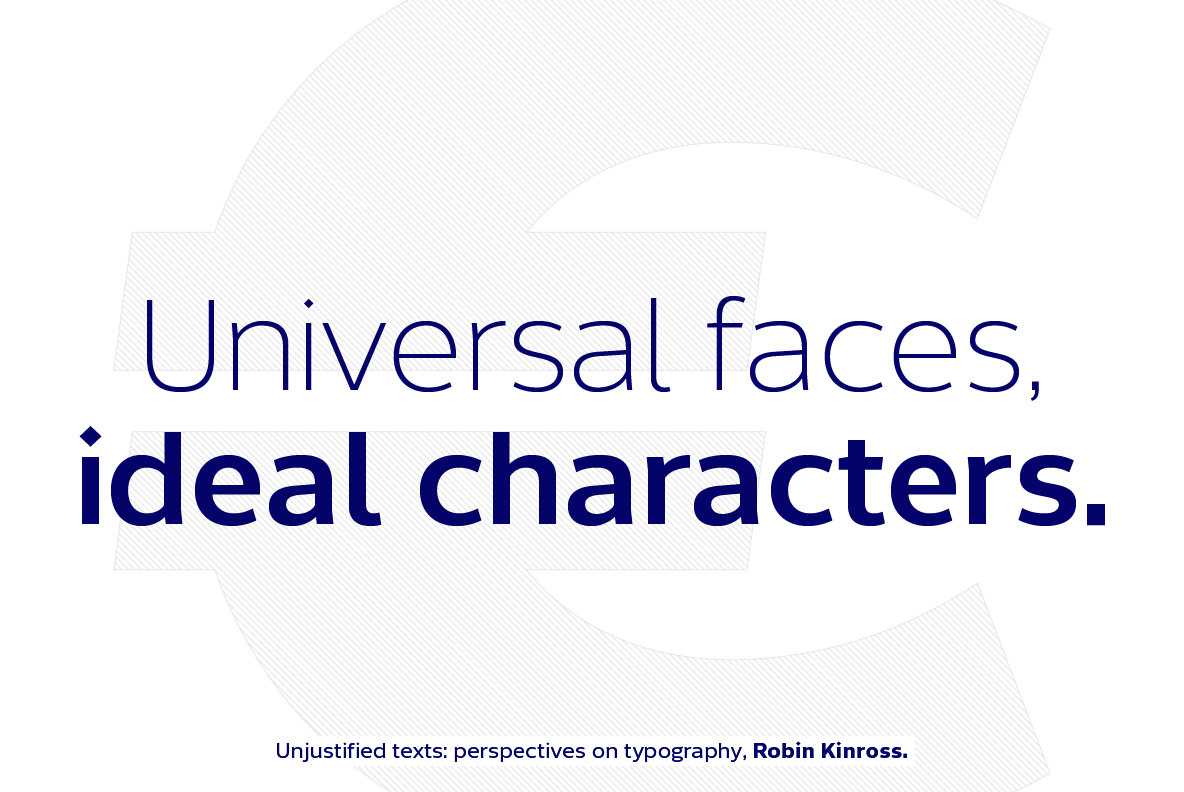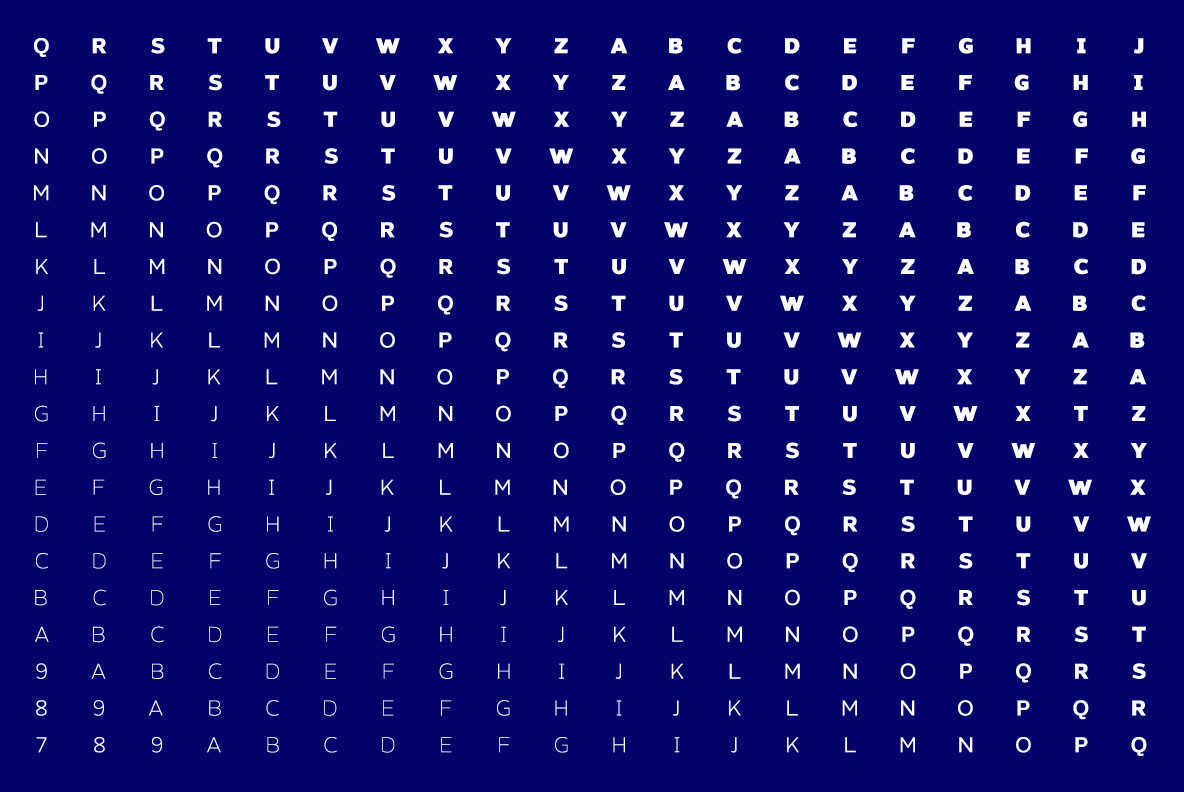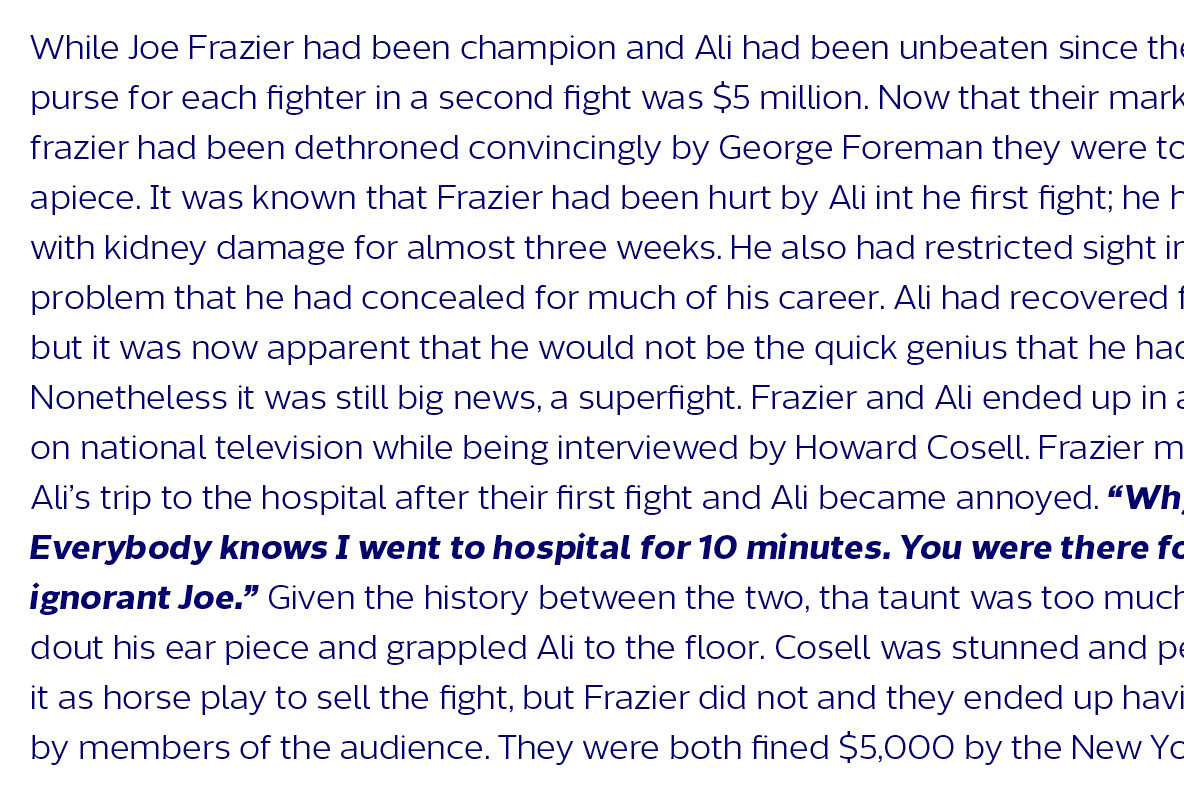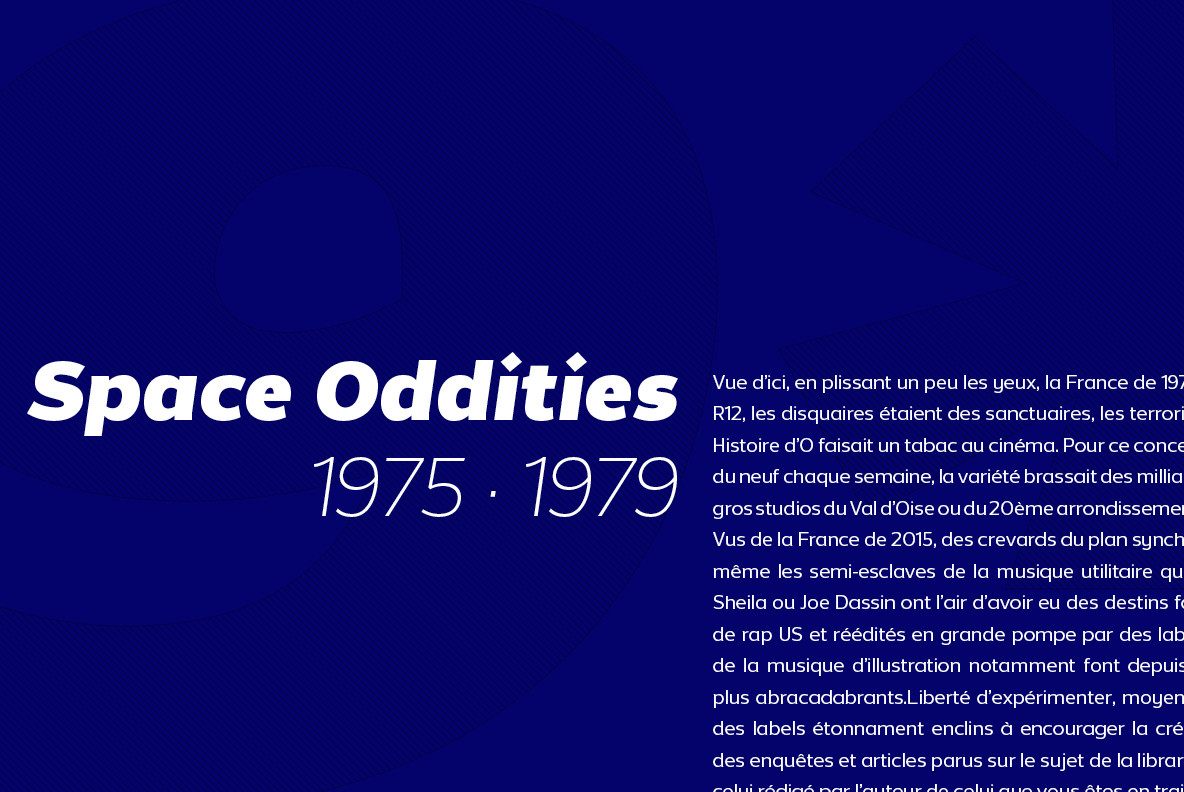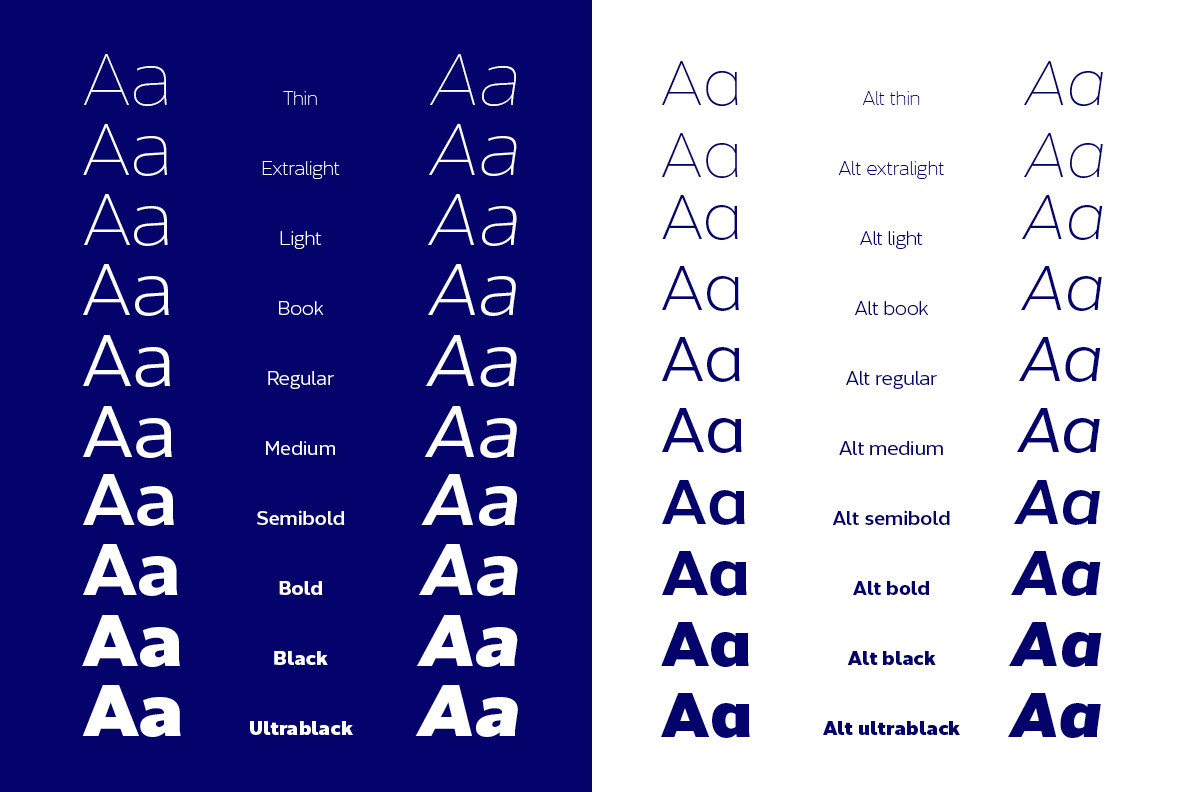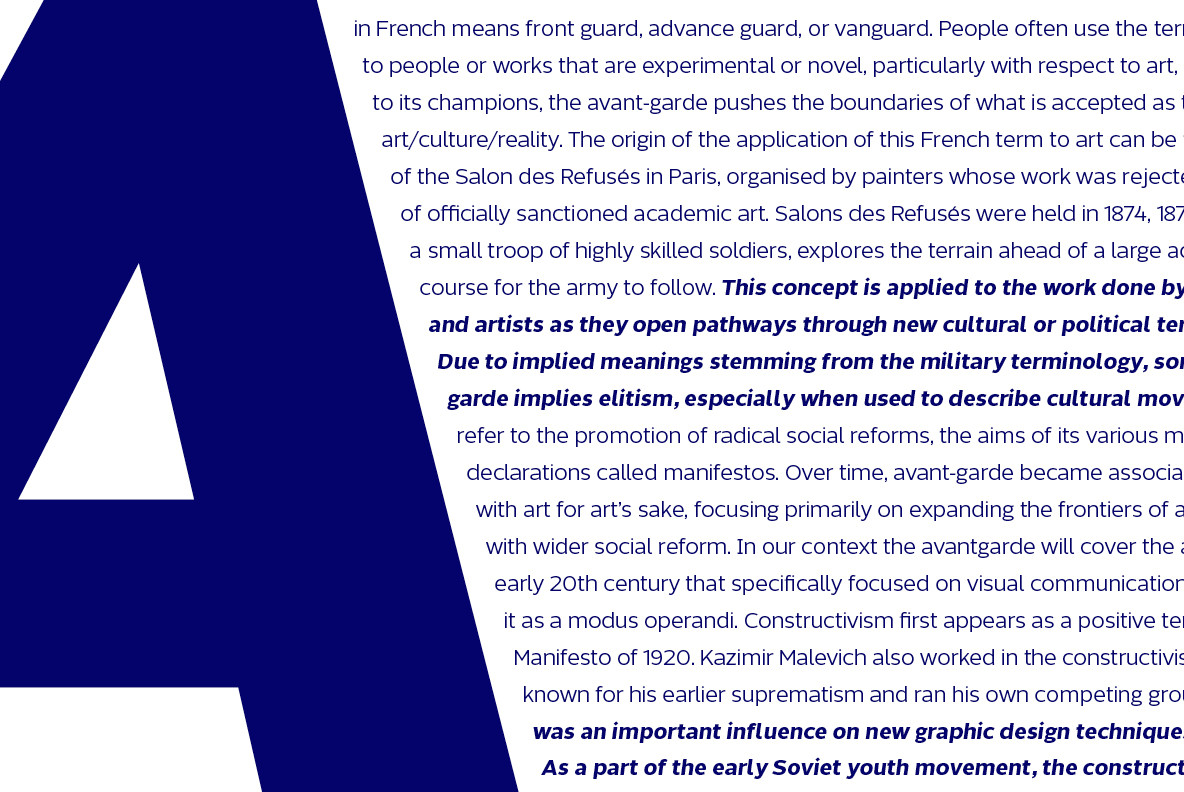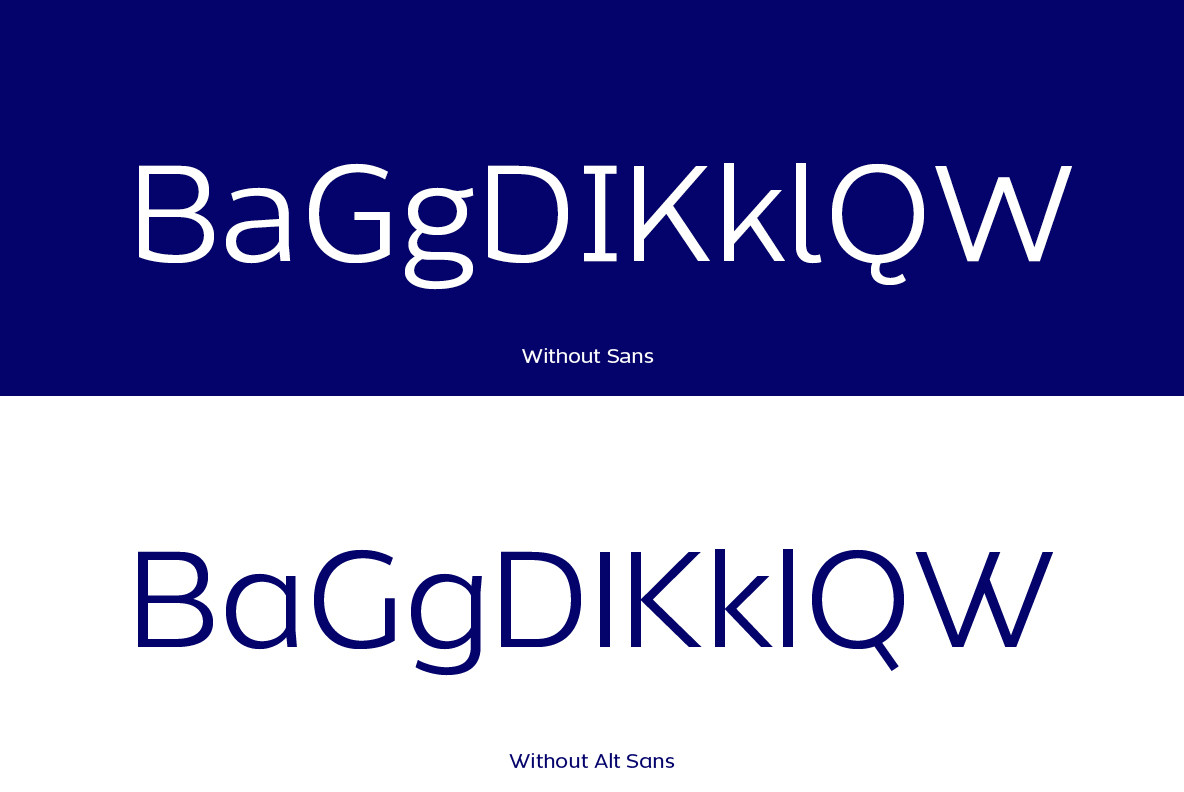
Without Sans Font
Without Sans is a new geometric sans serif of 10 weights plus matching italics and alt family. It was designed by Felipe Sanzana and Diego Aravena, the founders of “Without Foundry”, in 2014/15. It is inspired by the geometric-style sans serif typefaces that were famous during the 50s. The fonts are based on the geometric forms with a mix of grotesque typefaces. The opentype fonts have an extended character set to support Central and Eastern European as well as Western European languages.
It is perfectly suited for highlighting lettering, magazines, web, interaction design, advertising and logotypes,.